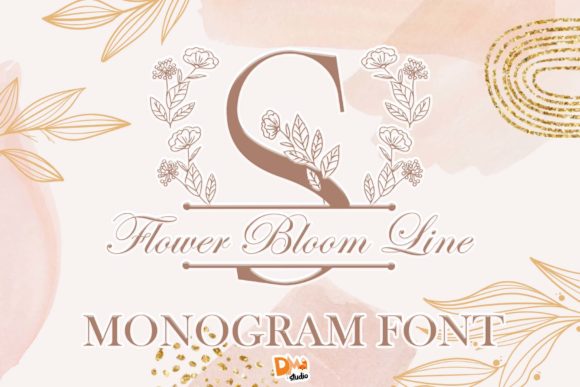
Step into a world of exquisite beauty and intricate design with the Flower Bloom Line Monogram Font, a stunning creation from the mind of dmletter31. As a decorative font, it captivates the senses with its delicate lines and enchanting curves, making it the perfect choice for those seeking a touch of elegance and romance.
Imagine your words taking on a life of their own, adorned with the graceful strokes of this enchanting font. Whether you're crafting love letters, designing wedding invitations, or simply adding a touch of charm to your creative projects, the Flower Bloom Line Monogram Font will elevate your designs to new heights of sophistication.
Prepare to be captivated by the intricate details and flowing lines that bring each character to life. Witness the harmonious blend of classic and contemporary aesthetics, making this font a timeless treasure. Unleash your imagination and let your words bloom with unparalleled beauty, leaving a lasting impression on all who behold them.